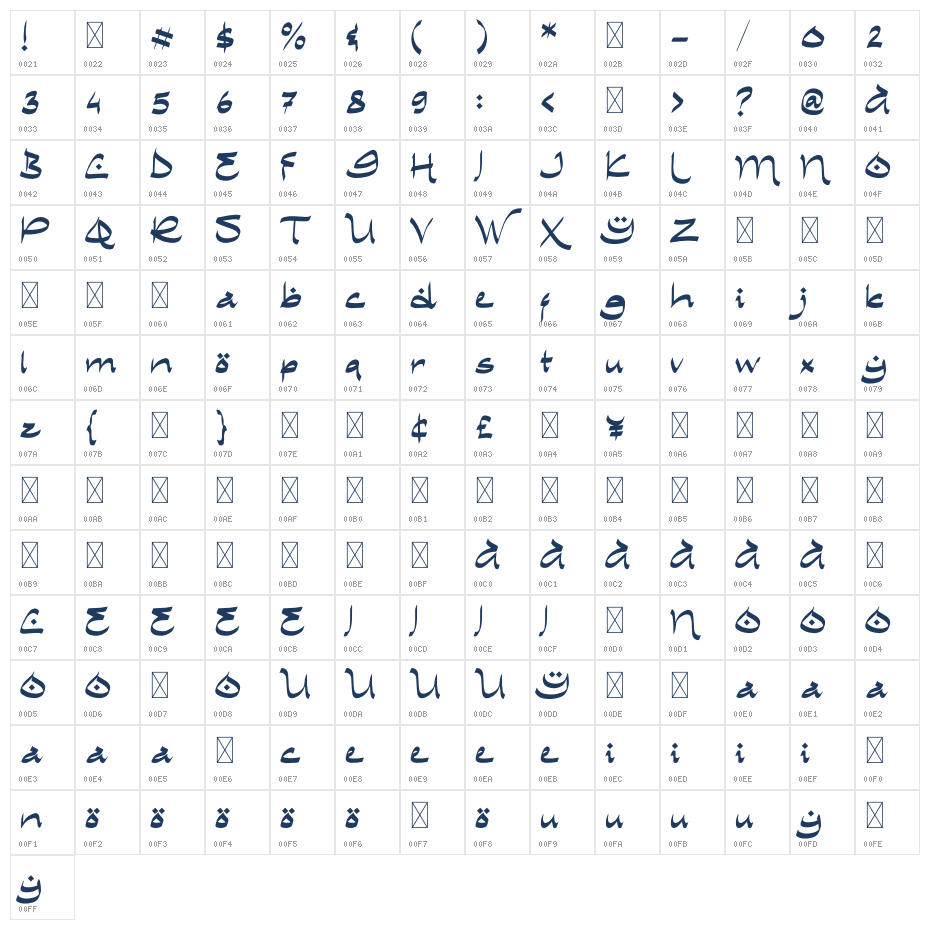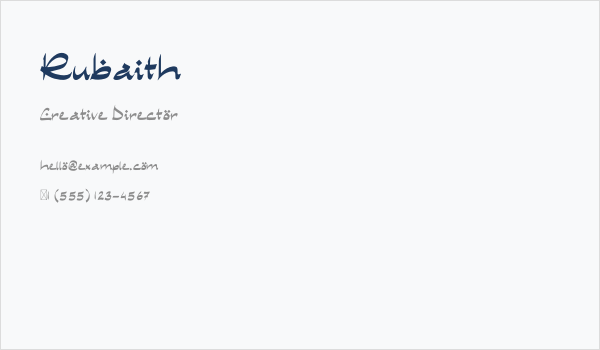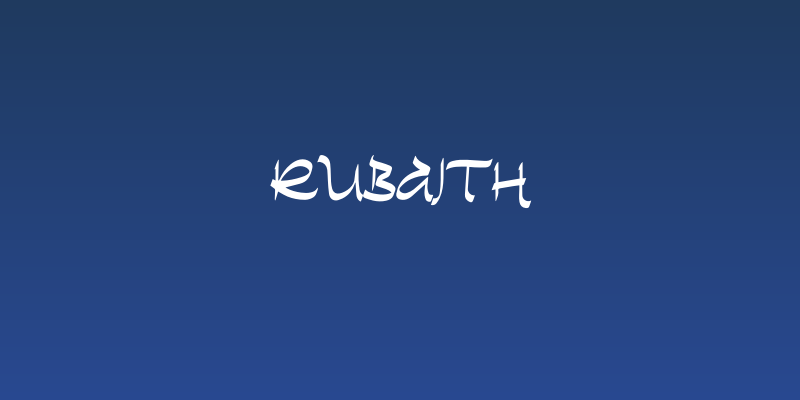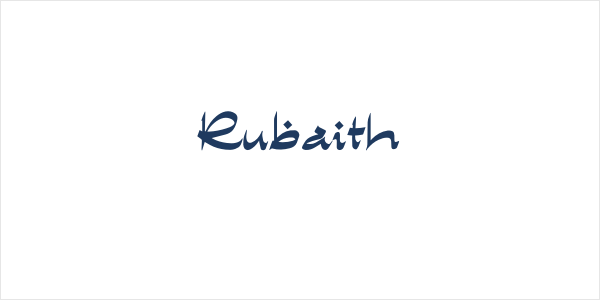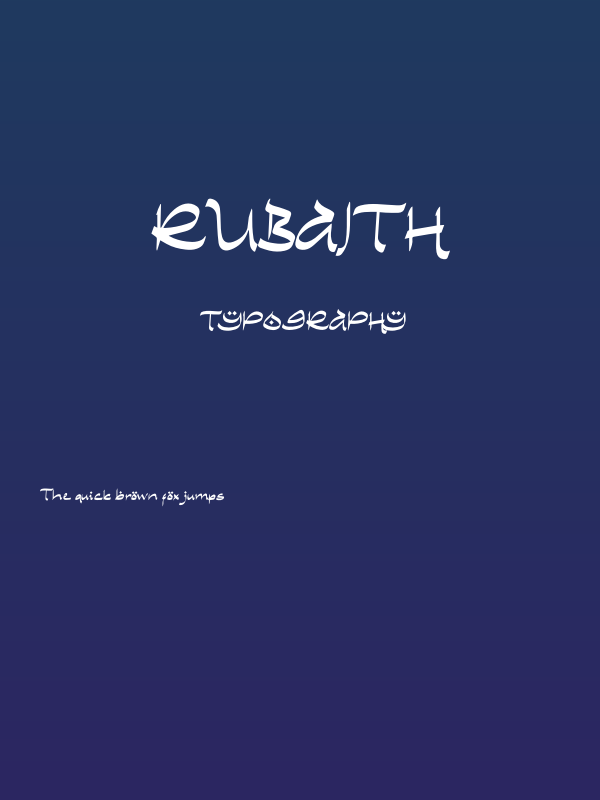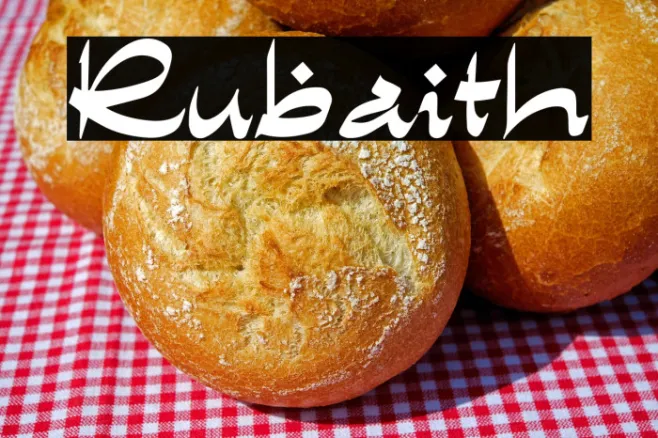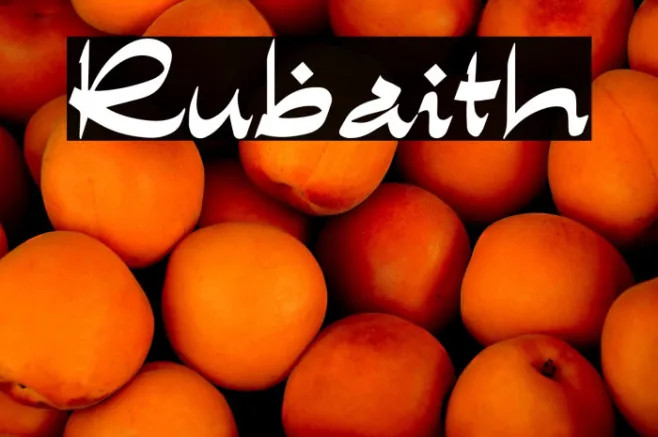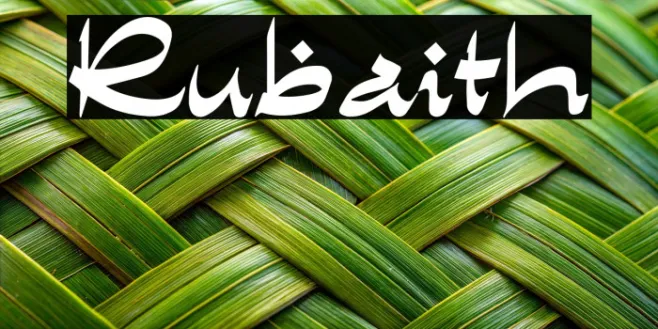
Rubaith Font
Rubaith Description
A decorative, stylized script font with an artistic, flowing appearance, featuring exaggerated curves and unique character shapes.
| Overall Style | Artistic, Decorative, Modern |
| Use Case | Headlines, Logos, Artistic projects |